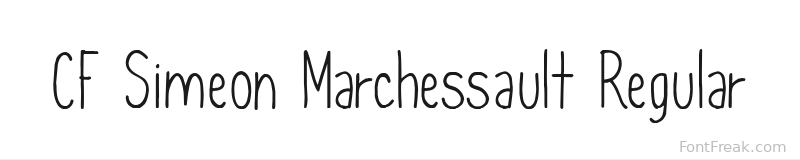
CF Simeon Marchessault Regular
About CF Simeon Marchessault Regular
CF Simeon Marchessault Regular by Cloutierfontes is a charming handwritten font that exudes a warm, inviting aesthetic. This typeface features a unique blend of casual elegance, making it a versatile choice for various design projects. The strokes are slightly varied in weight, giving it a dynamic feel while maintaining legibility. The overall spacing is comfortable, allowing for clear readability, whether in short phrases or longer texts. The playful curves and gentle lines add a personal touch, making it perfect for projects that require a friendly and approachable look.
This font is ideal for wedding invitations, where its whimsical character can enhance the romantic theme. It also suits restaurant menus, providing a welcoming vibe that can entice diners. For creative projects like children's book covers or educational materials, CF Simeon Marchessault Regular can bring a sense of fun and creativity. Additionally, small business owners looking to create engaging branding materials will find this font a great asset for logos or promotional items.
What sets CF Simeon Marchessault Regular apart is its ability to blend functionality with a casual, artistic flair. This font free download not only provides a unique visual appeal but also offers the versatility needed for a range of creative applications, ensuring that every project feels special and thoughtfully designed.